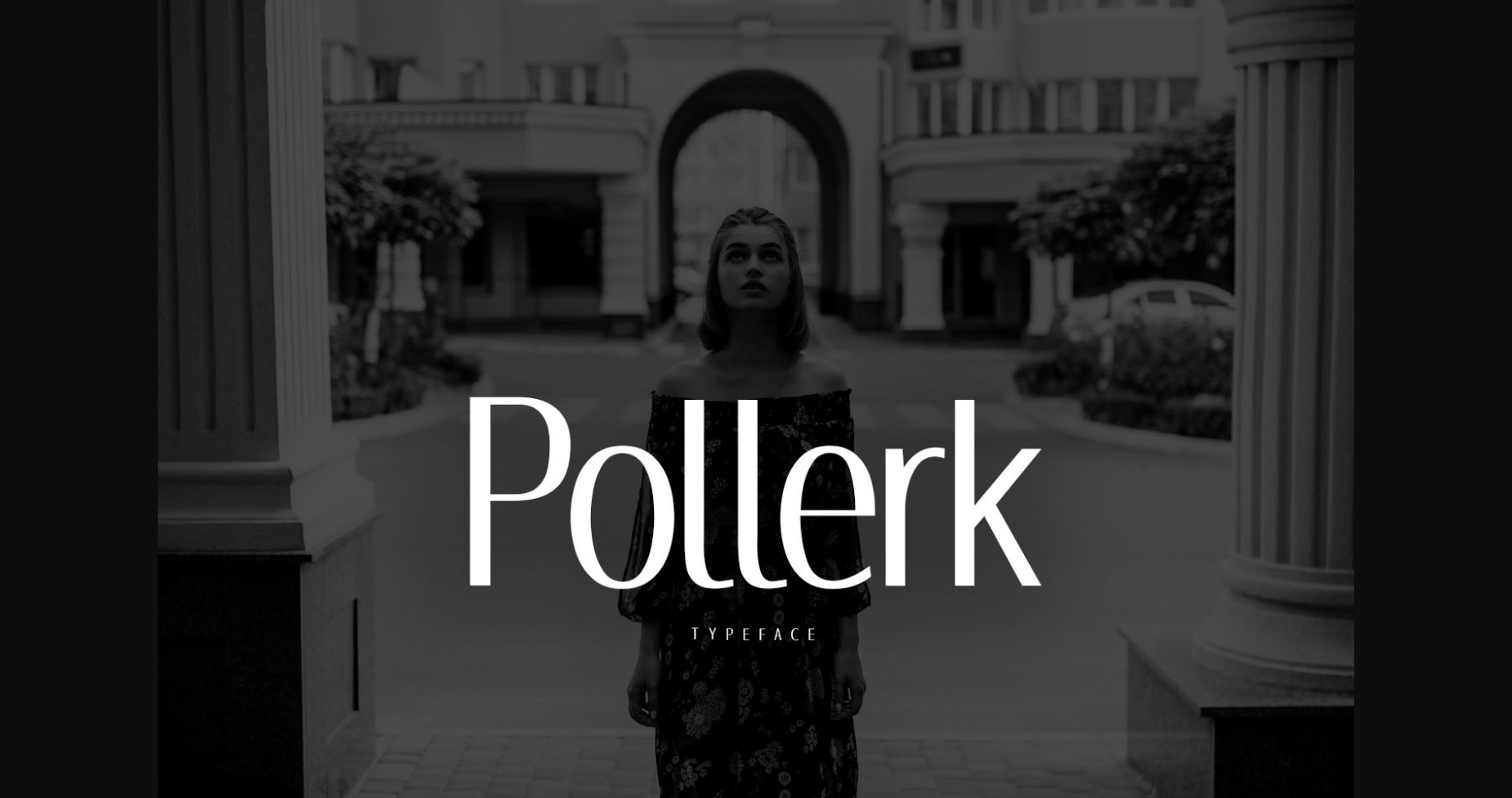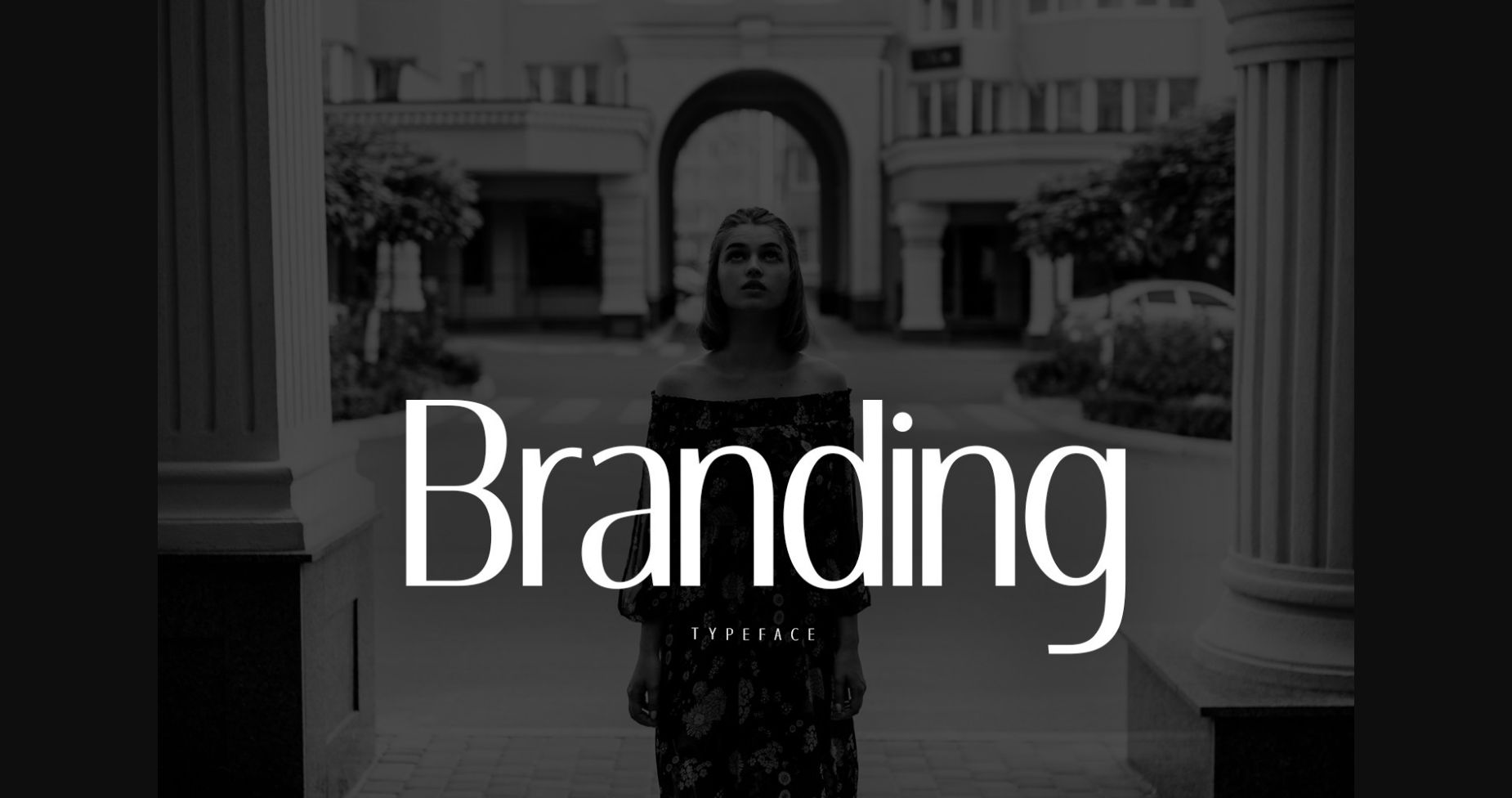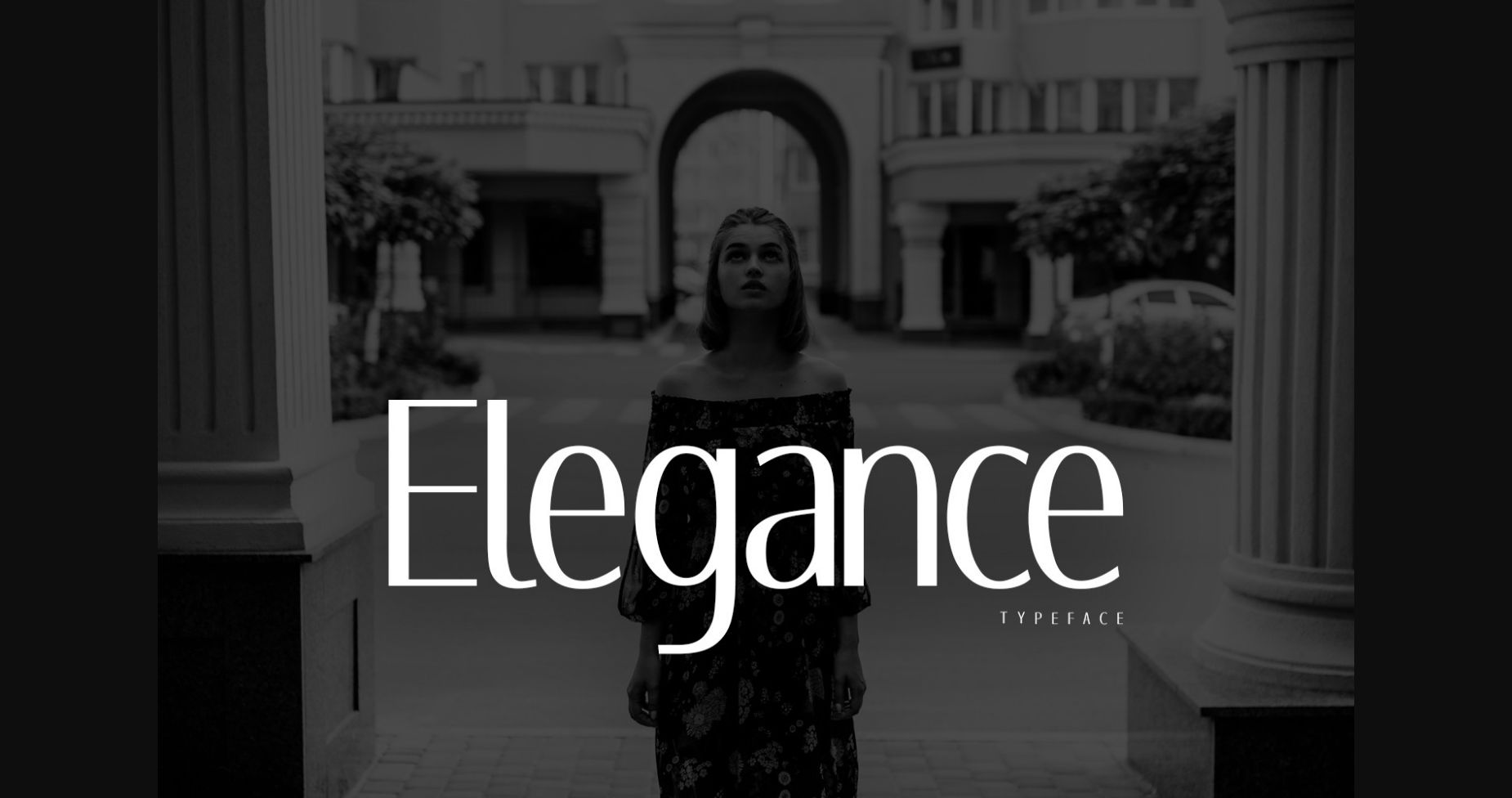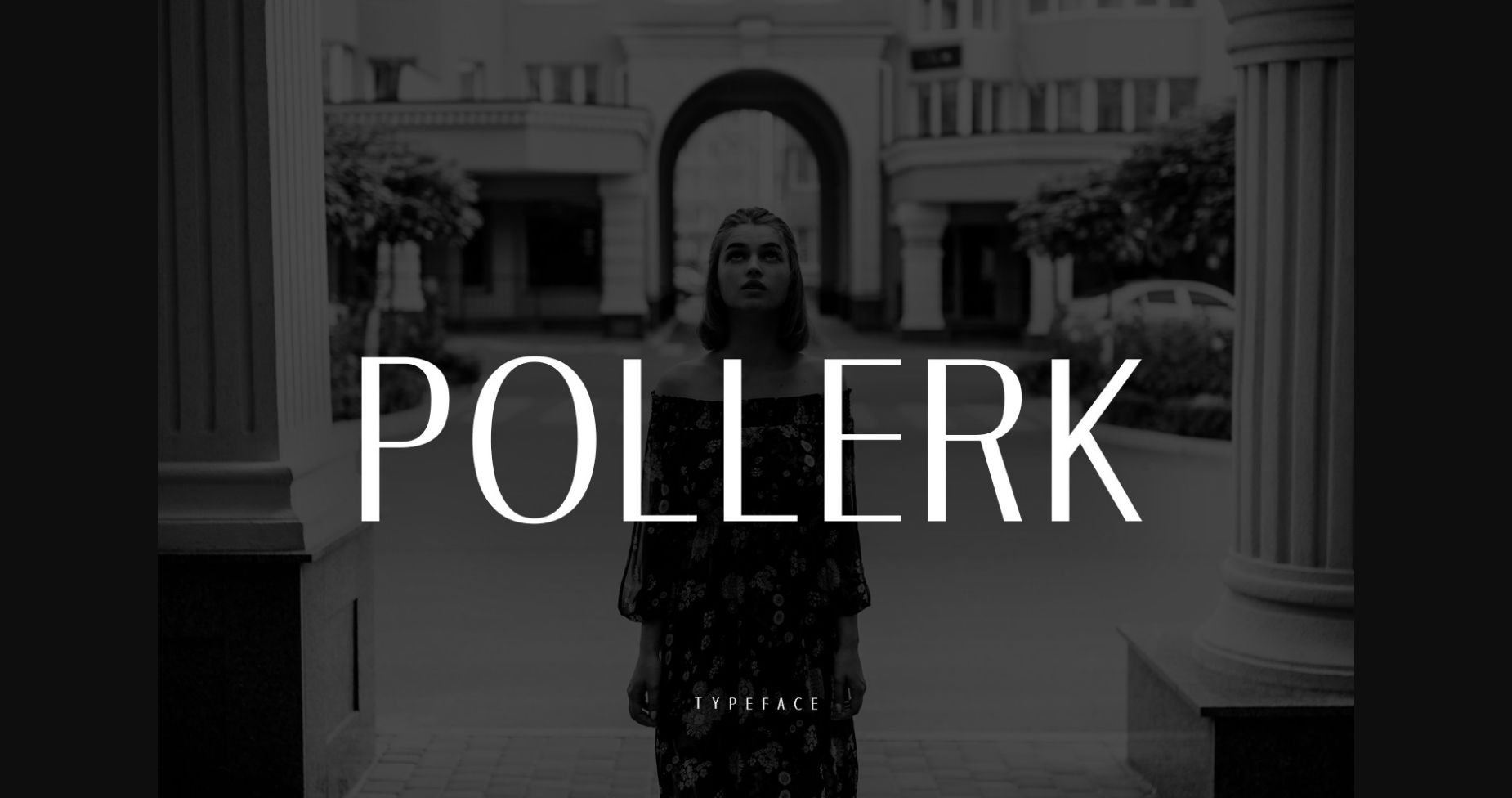
HomeSans Serif FontsPollerk Font Sans Serif Fonts Pollerk Font FacebookXPinterestWhatsApp 1 of 6 ... Pollerk Font Poster 2... Pollerk Font Poster 3... Pollerk Font Poster 4... Pollerk Font Poster 5... Pollerk Font Poster 6... About Pollerk Font Pollerk is a modern sans serif font. With proportional letters and a cozy, cheerful vibe, this font will take your creations to the next level while keeping everything classy and minimalistic! DOWNLOAD NOW People also explored Hightown Font Auther Typeface Maria Raney Font Joseph Age 7 Font Velvetberries Hello Sweets Clementine Font Lombok Beach Font Simple Thing Font 261 0 TagsPollerkPollerk Font Previous articleEngland FontNext articleQuarter Font LEAVE A REPLY Cancel reply Comment: Please enter your comment! Name:* Please enter your name here Email:* You have entered an incorrect email address! Please enter your email address here Website: Save my name, email, and website in this browser for the next time I comment. Personal Use Free 1313 Mockingbird Lane Personal Use Free Read more about this font Joystix Monospace Personal Use Free Read more about this font Huntry Personal Use Free Read more about this font Ailand Personal Use Free Read more about this font BLOG Fonts That Capture the Spirit of New York City New York City is more than just a place—it’s an experience, a rhythm, a visual language... Top 7 Google Fonts Alternatives for Faster and Privacy-Friendly Web Design (2025) Free vs Paid Fonts: Why Investing in Premium Fonts Is Worth It Where to Buy American Fonts Online in 2024